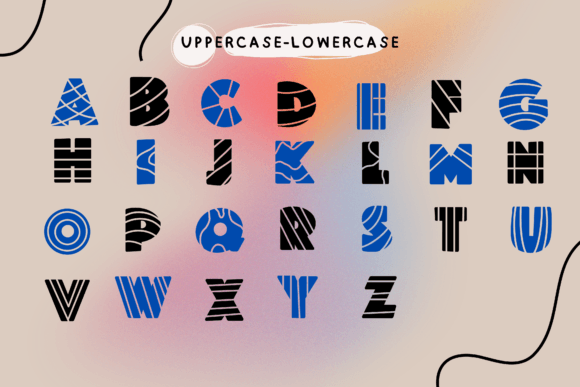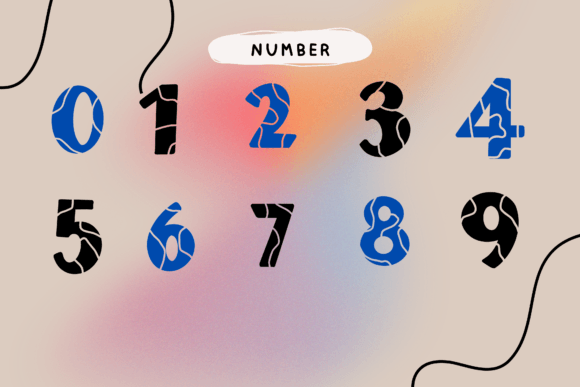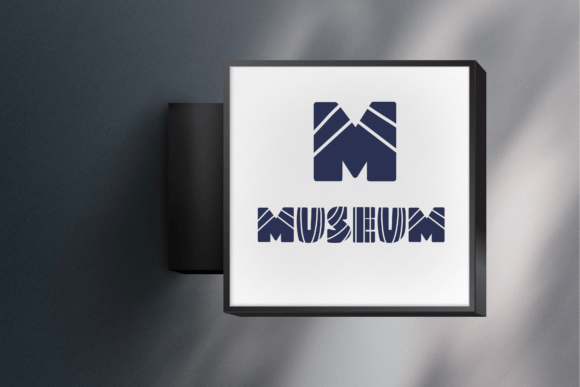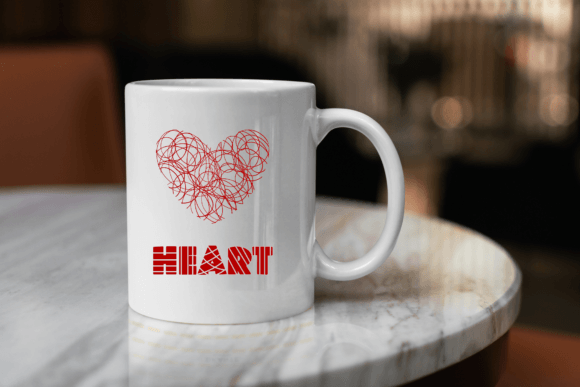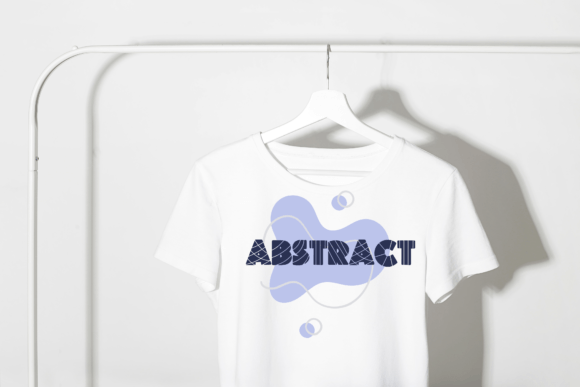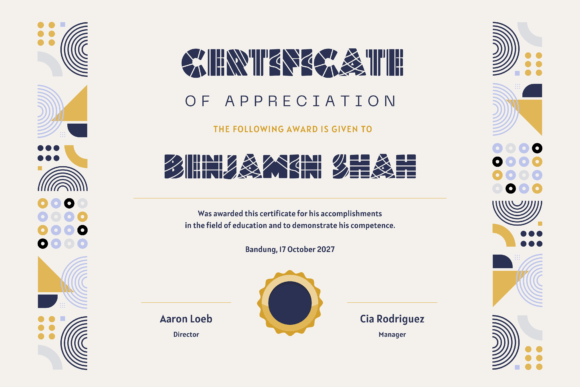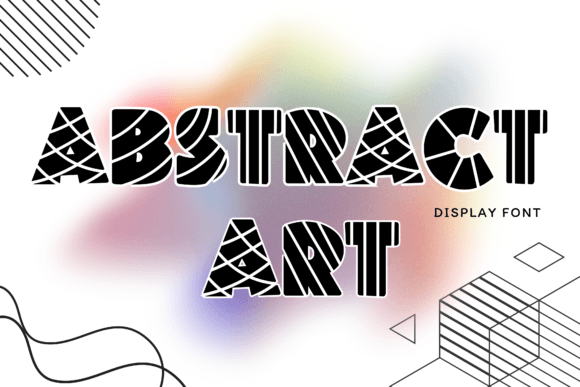
The Moment of Truth: Finding the Perfect Font
I still remember the countless hours I spent scrolling through font libraries, searching for the perfect one to bring my design project to life. My client wanted a unique and creative touch for their branding, and I was determined to deliver. That’s when I stumbled upon Abstract Art, an incredibly versatile display font that exceeded my expectations. In this article, I’ll share my experience with Abstract Art, its features, and how you can make the most of it in your design endeavors.
An Honest Review of Abstract Art
- ✨ Endless possibilities: Abstract Art’s creative adaptability shines in various design applications, from writing to broader design endeavors.
- ✅ Easy to read: Despite its artistic nature, the font remains legible, making it perfect for body text and headlines.
- 🎨 Highly customizable: With OpenType features, glyphs, and stylistic alternates, you can experiment with different styles to suit your design needs.
While Abstract Art is an excellent font, there are a few minor considerations to keep in mind:
- ⚠️ Limited use in small sizes: Due to its artistic nature, Abstract Art may not be the best choice for very small font sizes or body text.
- 🤔 Some characters may require adjustments: Depending on the design, you might need to tweak certain characters to achieve optimal spacing and alignment.
The Backstory of Abstract Art
Abstract Art was designed with the intention of pushing the boundaries of creative expression. The designer aimed to create a font that would inspire artists, designers, and writers to experiment with different styles and techniques. With its unique blend of artistic flair and readability, Abstract Art has become a versatile tool for various design applications.
Q: What is the best way to use Abstract Art in a design project?
A: Abstract Art is highly versatile, so feel free to experiment with different design applications, such as headings, body text, and graphics. However, keep in mind its limitations in small font sizes and adjust accordingly.